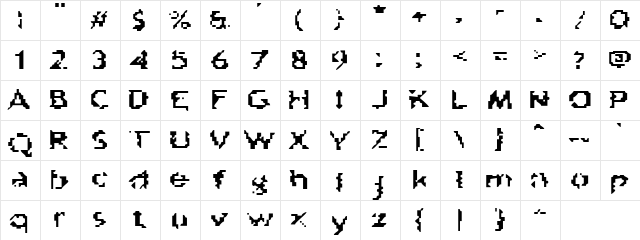
Damn the Man Regular
Design Context for Damn the Man Typeface
Damn the Man is a composed and adaptable typeface that performs quietly and consistently across a wide range of design contexts.